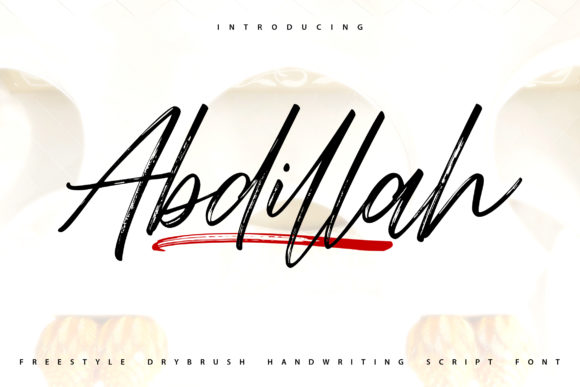
Introducing Abdillah Font, a Stirring Handwritten Creation for Unforgettable Designs:
Embark on a journey of captivating design with Abdillah Font, a breathtaking handwritten font that will add a touch of elegance and sophistication to your creative projects. Crafted with the utmost care and precision, Abdillah embodies the beauty and fluidity of pen strokes, capturing the essence of free-form artistry.
As a creation born from the fusion of creativity and expertise, Abdillah Font stands as a testament to the power of exceptional craftsmanship. Its unique and timeless style exudes a charm that transcends trends, making it a perfect choice for designers, artists, and creative professionals seeking to make a lasting impression.
With Abdillah Font as your design companion, you'll have the power to transform ordinary projects into extraordinary masterpieces. Let your imagination soar as you harness the font's inherent versatility to create stunning online posters, eye-catching social media graphics, captivating invitations, and heartfelt personal messages.
Visualize the impact of your online posters adorned with the mesmerizing strokes of Abdillah Font. Its enchanting curves and distinctive swashes will command attention, leaving a lasting impression on your audience. Tap into the font's innate ability to evoke emotions and captivate hearts, ensuring that your posters become cherished keepsakes.
Unlock the Endless Possibilities with Abdillah Font:
- Experience the joy of designing alluring online posters that resonate with your audience.
- Elevate your social media presence with captivating graphics that demand attention.
- Create heartfelt invitations that reflect the essence of your special occasion.
- Express your emotions with personalized messages penned in the beautiful strokes of Abdillah Font.
Embrace the Beauty of Handwritten Craftmanship:
Abdillah Font is not just a collection of letters; it's an expression of artistry, a celebration of the human touch in a digital world. Its intricate details, delicate ligatures, and subtle variations capture the essence of handwritten beauty, adding a personal touch to your designs.
Imagine the delight of your loved ones as they receive heartfelt messages inscribed with the charm of Abdillah Font. Each word, each letter, becomes a testament to your care and thoughtfulness, transforming ordinary greetings into cherished keepsakes.
Experience the Versatility of Abdillah Font:
Abdillah Font is not confined to a single style or genre. Its versatility allows it to effortlessly adapt to diverse design needs, becoming an indispensable tool in your creative arsenal. Whether you're seeking an elegant touch for your wedding invitations, a playful vibe for your social media posts, or a captivating voice for your online posters, Abdillah Font rises to the occasion.
Dive into the World of Abdillah Font:
Join the growing community of designers and artists who have embraced the beauty of Abdillah Font. Explore the endless creative possibilities it unlocks, and let your imagination run wild as you transform your designs into works of art.
With Abdillah Font as your guide, you'll embark on a journey of creativity, leaving a trail of captivating designs that capture hearts and leave a lasting impression. Experience the transformative power of this extraordinary font and unlock the gateway to unforgettable designs!